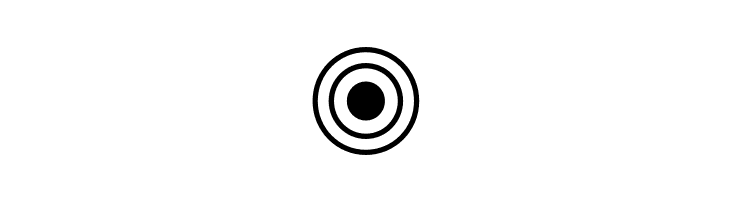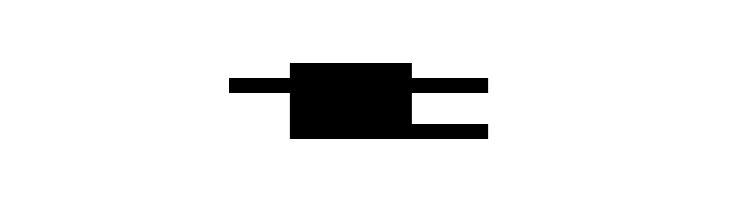
• sunday funnies BoldOutline
A bold, outlined font with a playful and cartoonish style.
• SUPERCAR Alp
A futuristic, geometric font with a digital, pixel-like design.
• SUPERCAR Kana
A bold, futuristic font with sharp, angular lines and a geometric style.
• Swelled Computer
A bold, pixelated font with a digital, retro aesthetic.
• Swink
A bold, playful font with rounded, dynamic characters.
• SwishButtonsNF
• Syncopate-Regular
A modern, geometric sans-serif font with balanced spacing and clear characters.
• SystemSevenBlack
A bold, geometric font with a futuristic, digital style.
• SystemSevenBold
A bold, pixelated font with a digital, geometric style.
• SystemSevenExtra
A bold, geometric font with a digital, futuristic style.